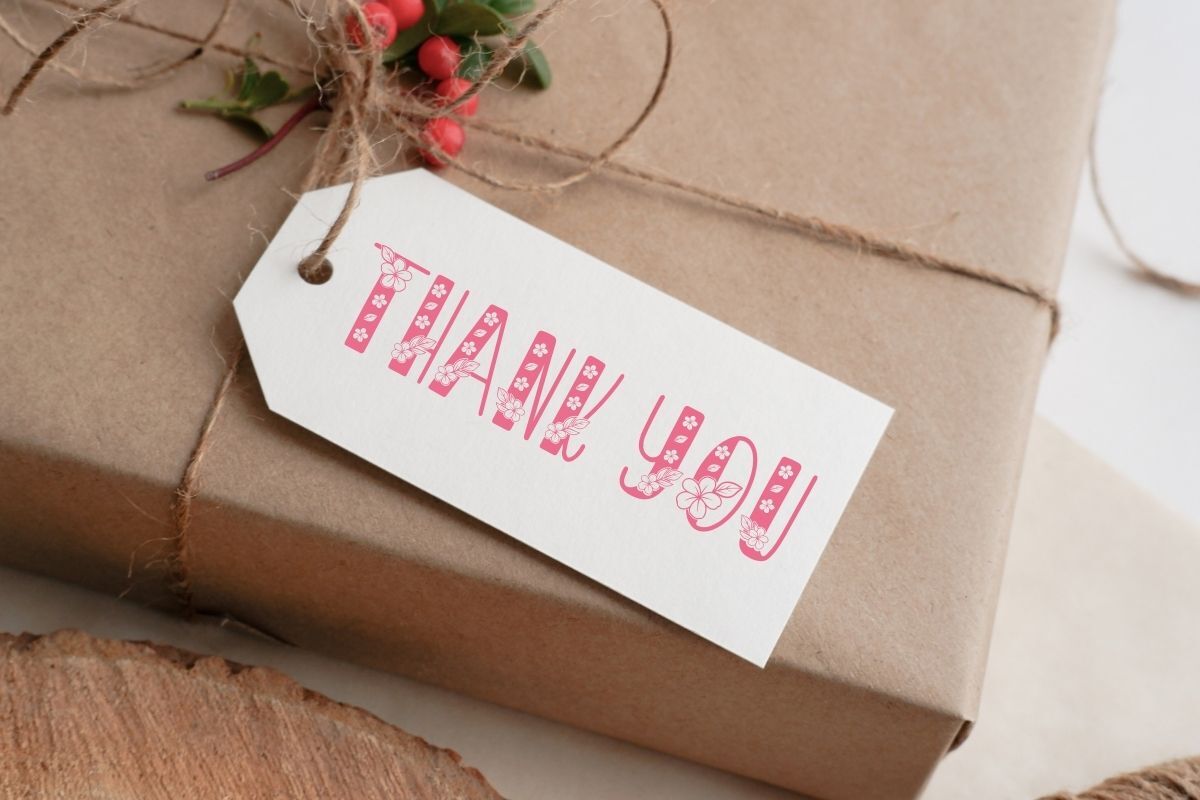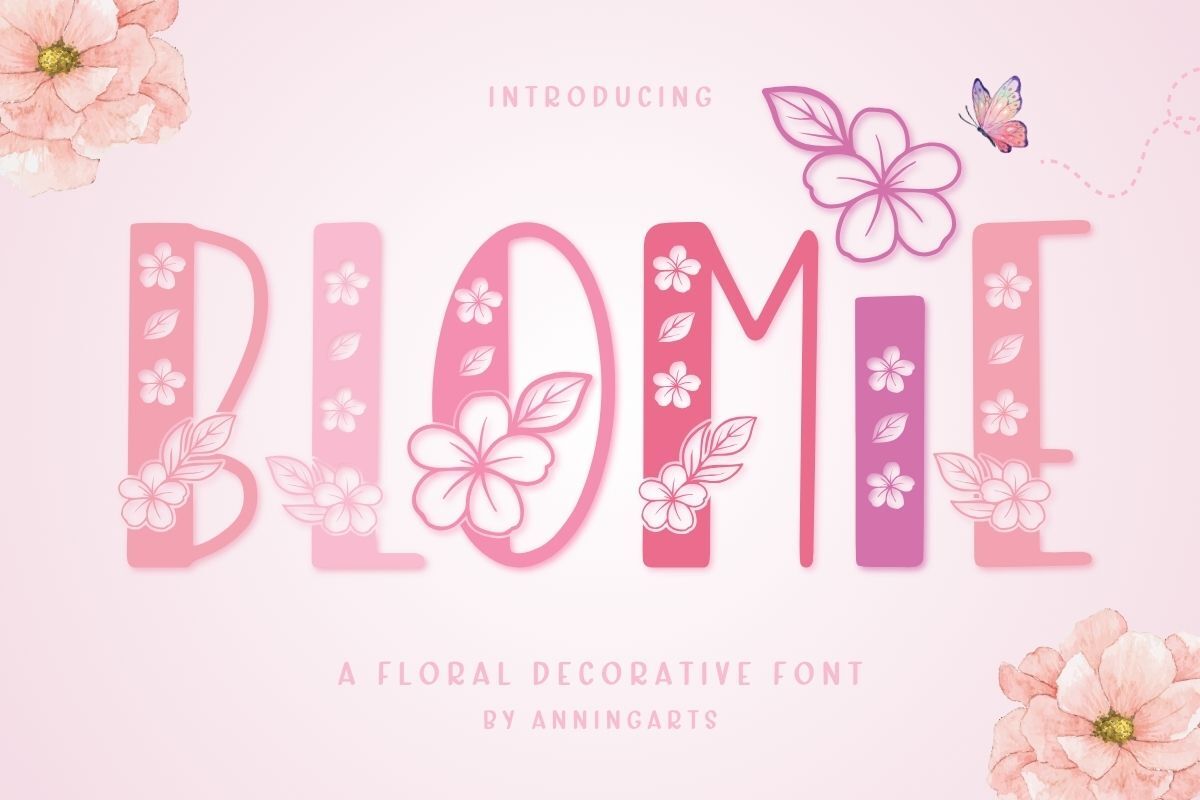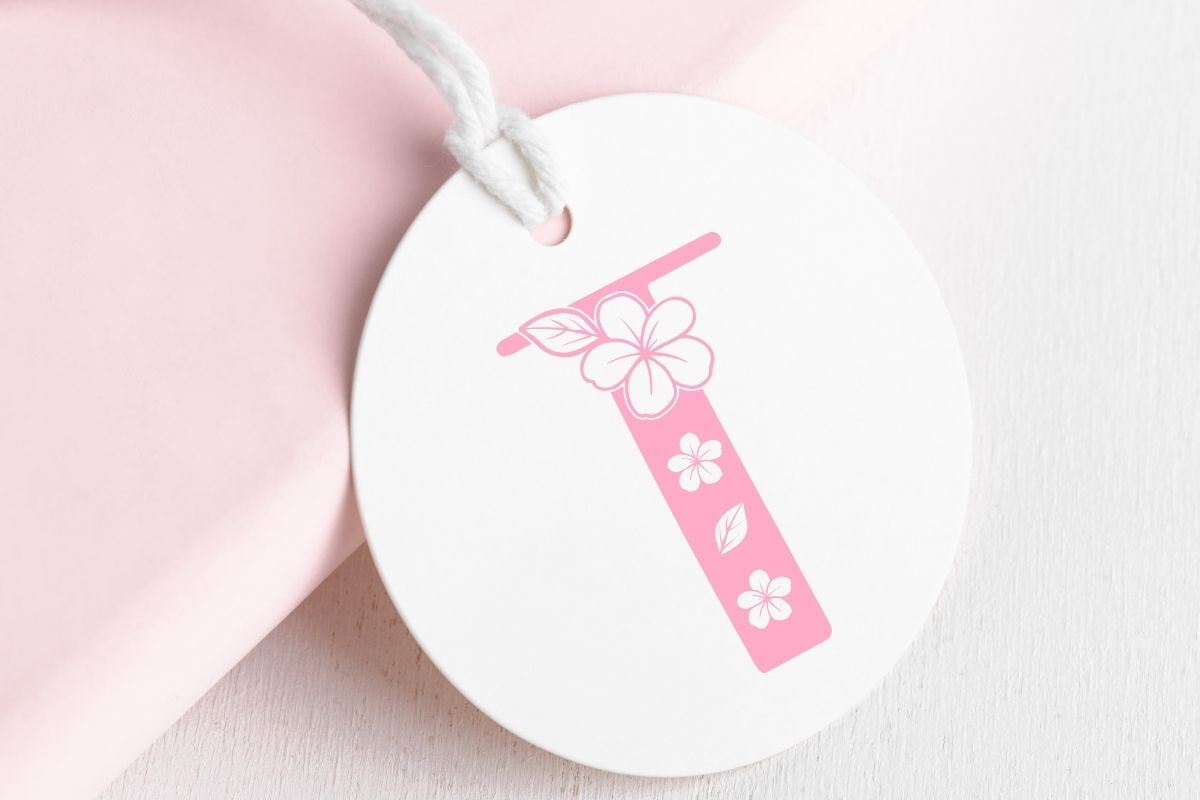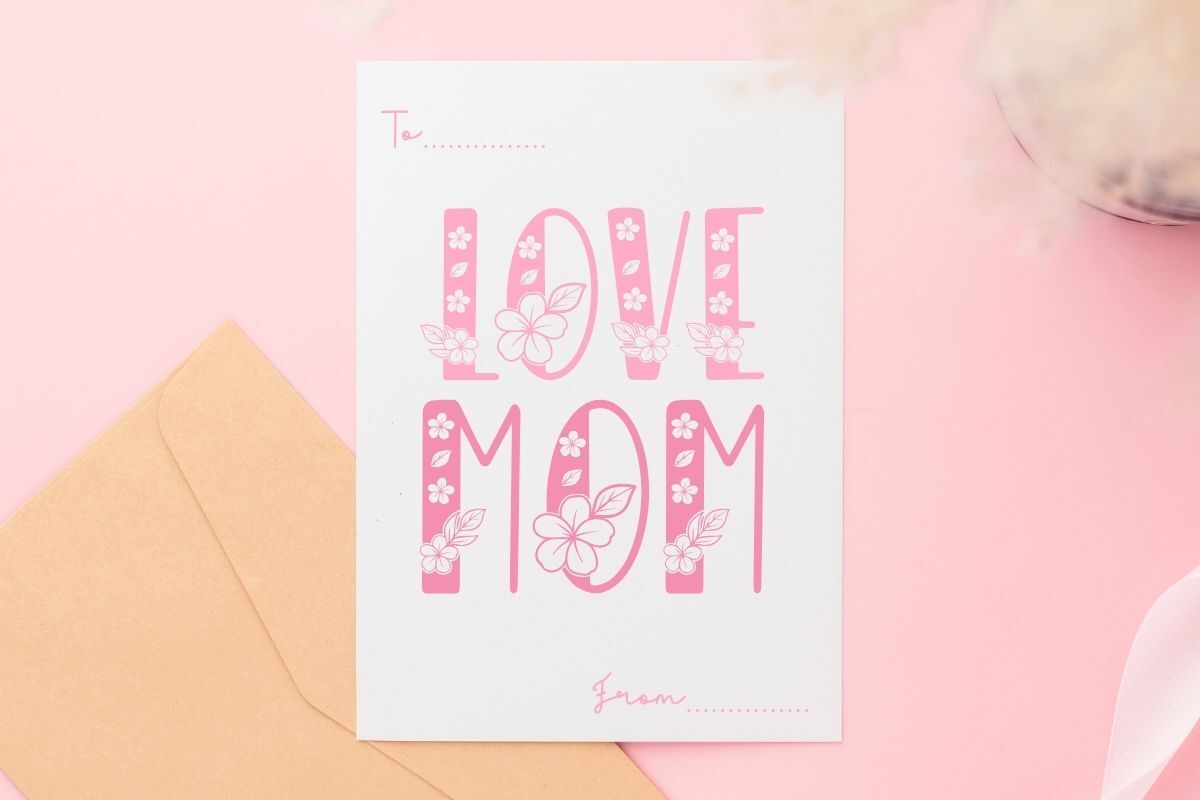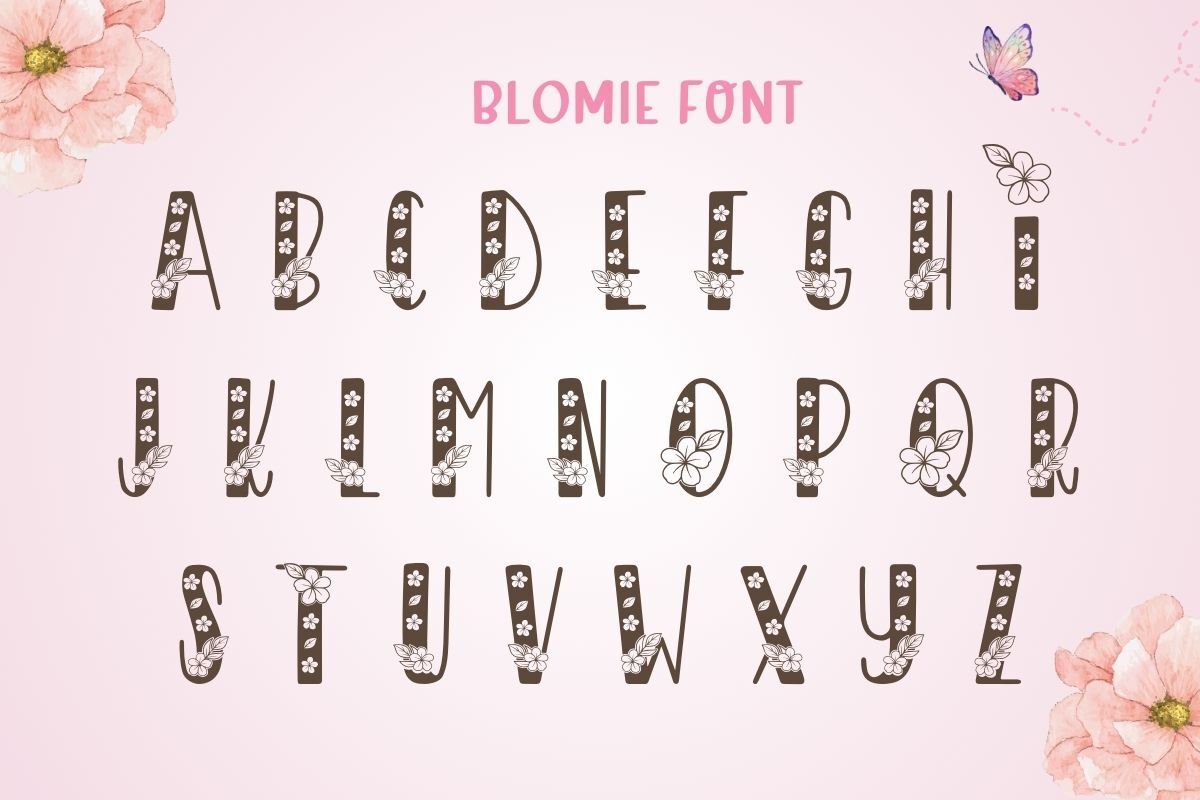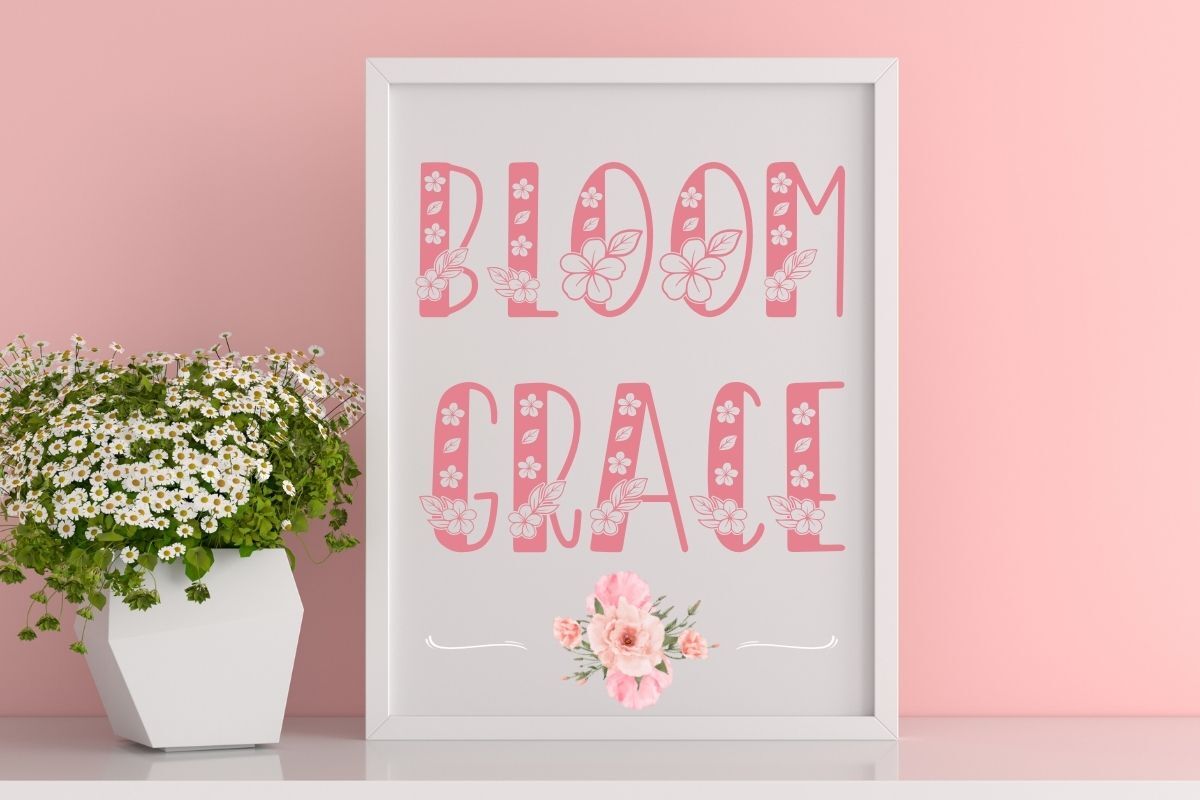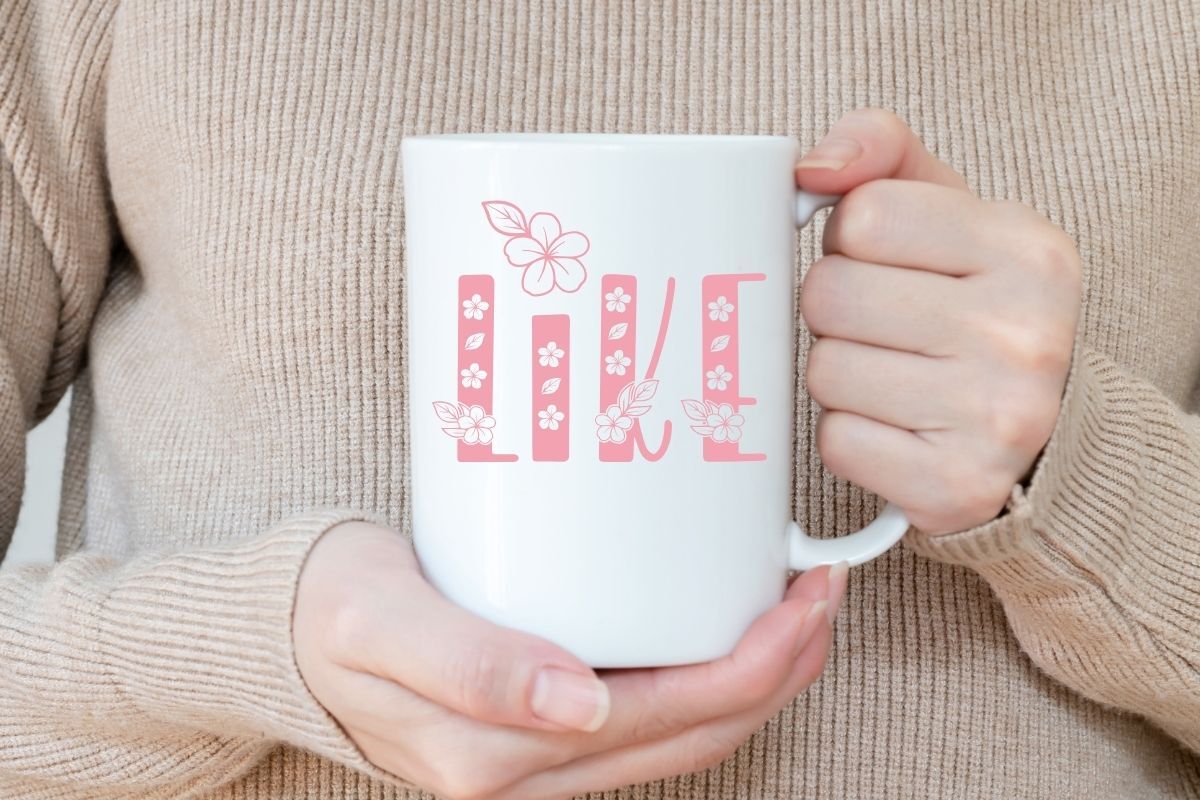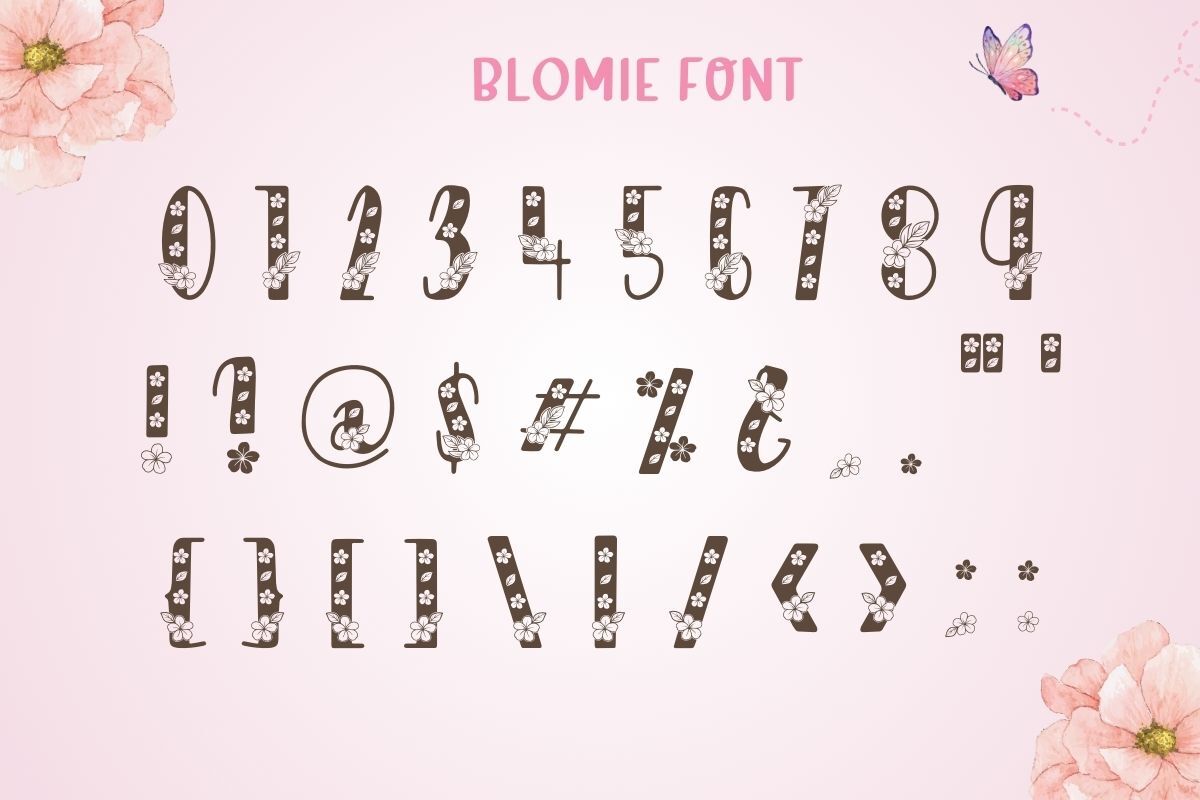
Blomie - Floral Decorative Font
Blomie is a playful floral font with lovely hand-drawn elements that make every letter feel like spring. Designed with hand-drawn flowers and soft curves, it’s perfect for creating romantic cards, nursery art, social media, wedding stationery, and more. *You will receive 1 Zip file: OTF, TTF and WOFF Files ❤️ Thank you! ❤️